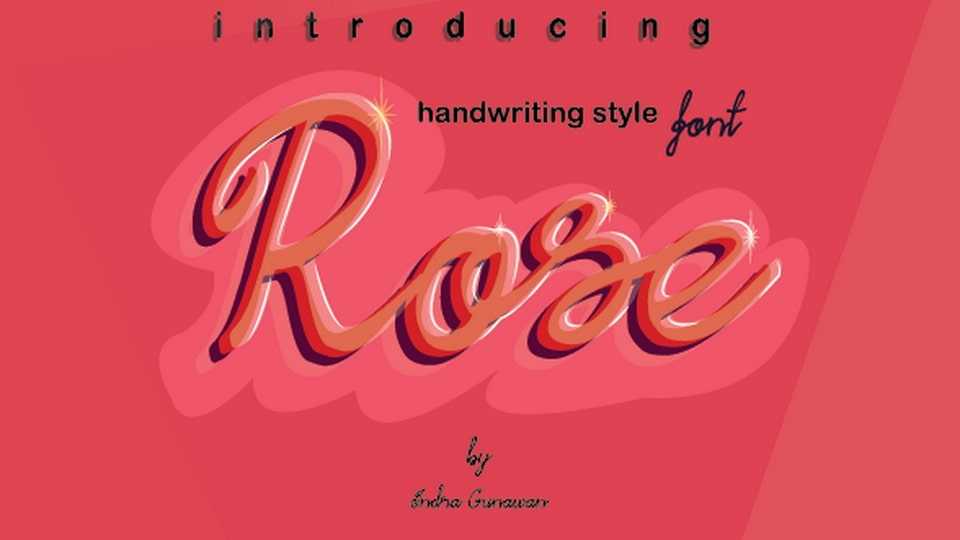
Download Rose font, a simple handwritten typeface that lends a touch of graceful elegance and personal warmth to your designs. Rose font features a clean and flowing design, with each letter exuding a sense of effortless beauty.
Designer: Indra Gunawan